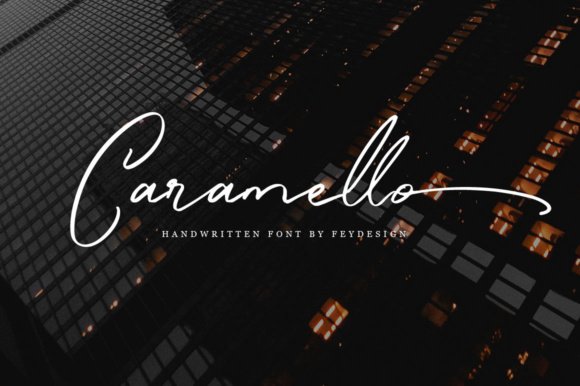
Unleash Your Creativity with the Caramello Font
Have you ever been brainstorming a new design idea and suddenly, a spark of inspiration hits you? Maybe it’s the perfect combination of colors or a quirky typography that just clicks. For designers, those ‘aha’ moments are what make our job so rewarding. And, what if I told you there’s a font that can help bring those ideas to life?
Meet the Caramello Font, a beautiful handwritten script font designed to add a personal touch to your designs. Whether you’re creating event invitations, custom wedding stationery, or even a quirky t-shirt design, this font is perfect for giving your projects a unique, handwritten look. The Caramello Font is a valuable addition to any designer’s toolkit, offering endless possibilities for creative expression.
Caramello Font Key Features
- Font Family: Caramello is a script font family designed for digital use.
- Character Set: Supports a wide range of languages, including Latin, Greek, and Cyrillic alphabets.
- Unique Characteristics: Caramello features a flowing, handwritten style with elegant connections and subtle flourishes, making it ideal for creative and artistic projects.
- Font Pairing: Designed to be paired with sans-serif fonts, Caramello adds a touch of sophistication and elegance to any design.
Caramello Font Review
As a designer, I was excited to dive into the Caramello Font and see if it lives up to its name. Overall, I have mixed feelings about this font, but let’s break it down.
- The Caramello Font has a unique, playful vibe that’s perfect for branding or marketing materials.
- The font is highly legible, even at smaller sizes, making it suitable for body text.
- The font’s curves and rounded edges give it a friendly, approachable feel.
- The font may not be the best choice for formal or professional applications, as it’s a bit too playful.
- The font’s bold weight may not be as strong as some designers might like.
- The font lacks a true italic version, which may be a limitation for some designers.
The Caramello Font is a fun, energetic font that’s perfect for projects that need a playful touch. While it has some limitations, it’s a solid choice for branding, marketing materials, or any project that requires a friendly, approachable feel. Just be aware of its limitations and choose it wisely.
The Caramello font is ideal for:
- Magazine and newspaper headlines.
For optimal results, use the Caramello font in combination with a clean and simple design to create a sophisticated and elegant look.